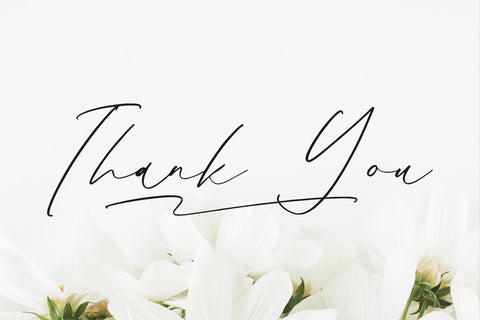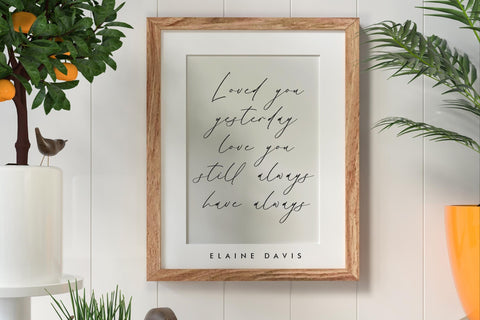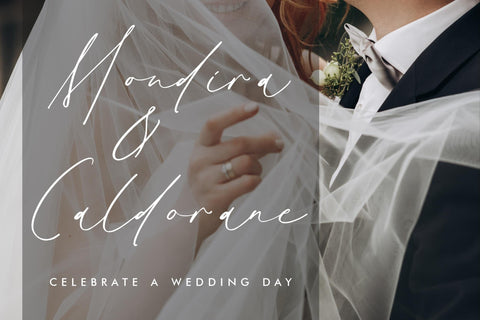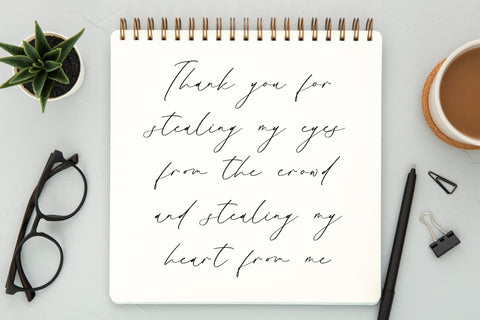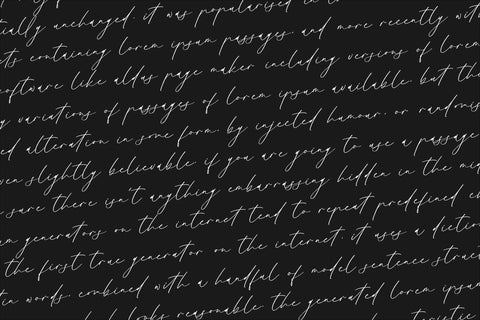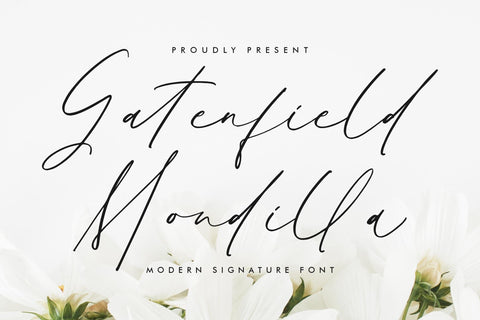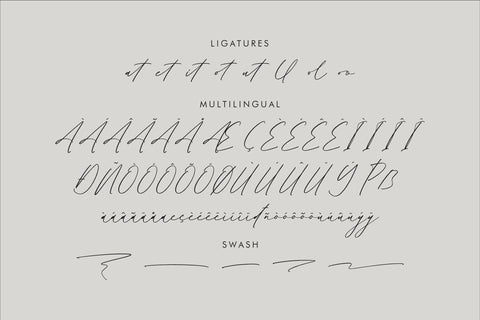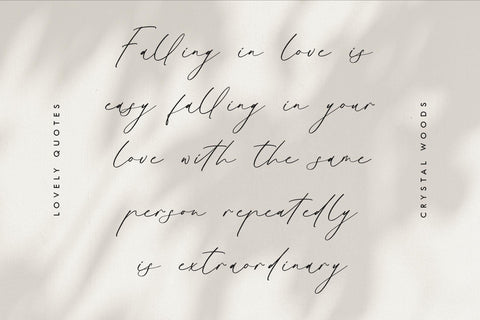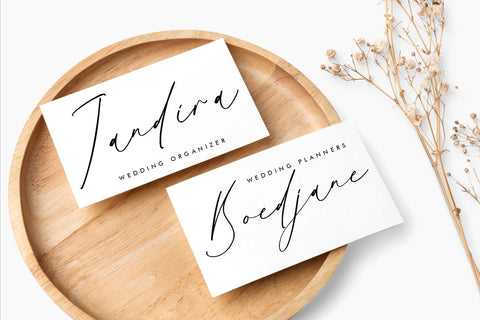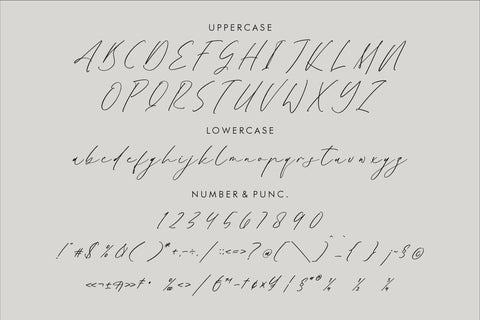
Gatenfield Mondilla - Modern Signature Font
Proudly present Gatenfield Mondilla - Modern Signature Font , created by Storytype,
A luxury script that has own unique style & modern look.